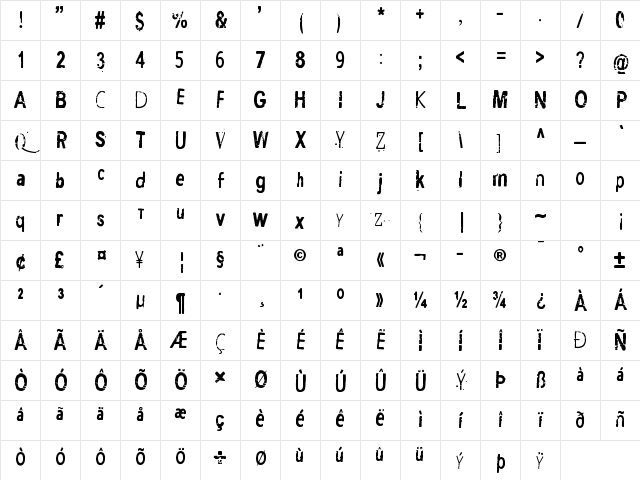
A good day to die Regular
Designer: junkohanhero
Design Context for A good day to die
A good day to die is a composed and adaptable typeface that performs quietly and consistently across a wide range of design contexts.